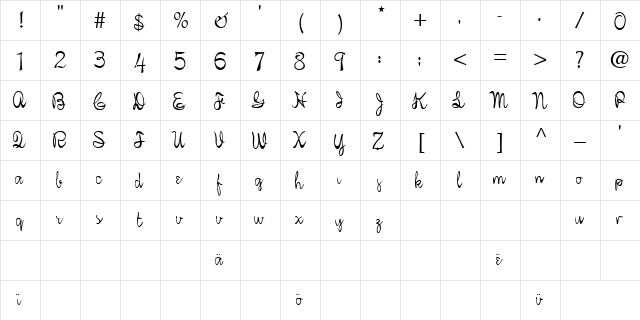
Figaro Script Regular
Design Context for Figaro Script Typeface
Figaro Script flows with the natural rhythm of handwritten lettering, making it ideal for designs that call for warmth and personal expression.
Font Pairing: Combine Figaro Script with a simple geometric sans for maximum contrast — the tension between flowing curves and clean structure is a classic typographic pairing.
Pro Tip: Pair Figaro Script with a clean sans-serif for supporting text. The contrast between fluid script and geometric structure creates an elegant typographic hierarchy.